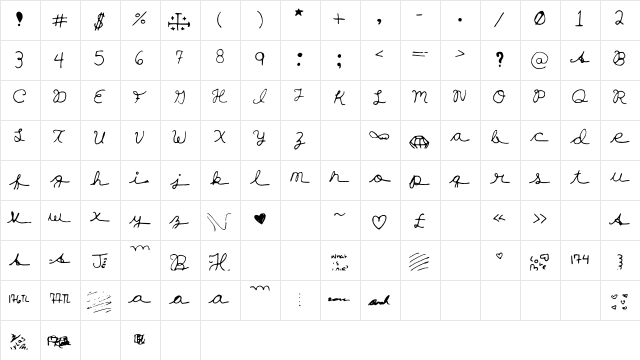
hannahfont Medium
Design Context for hannahfont Typeface
hannahfont is a composed and adaptable typeface that performs quietly and consistently across a wide range of design contexts.